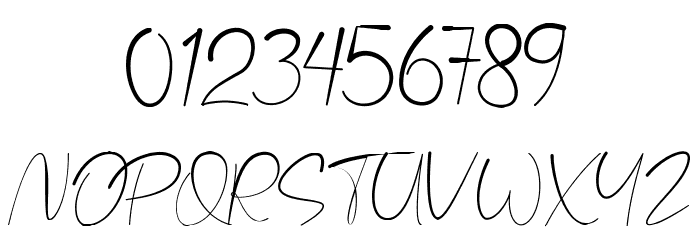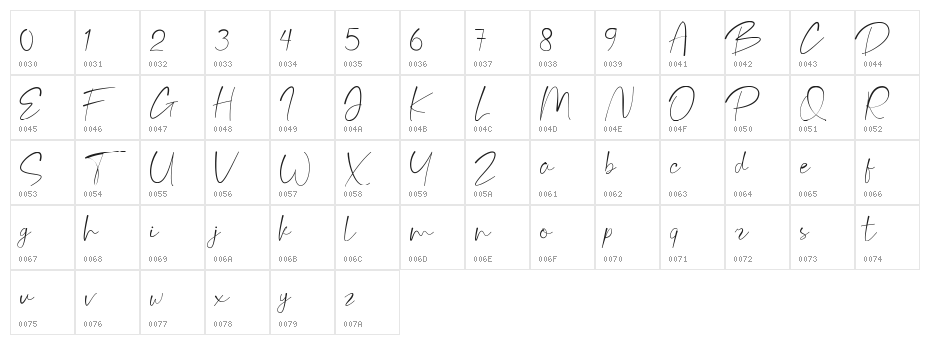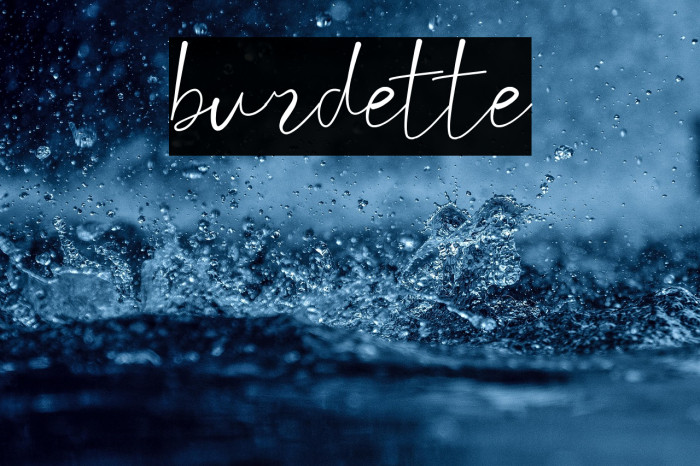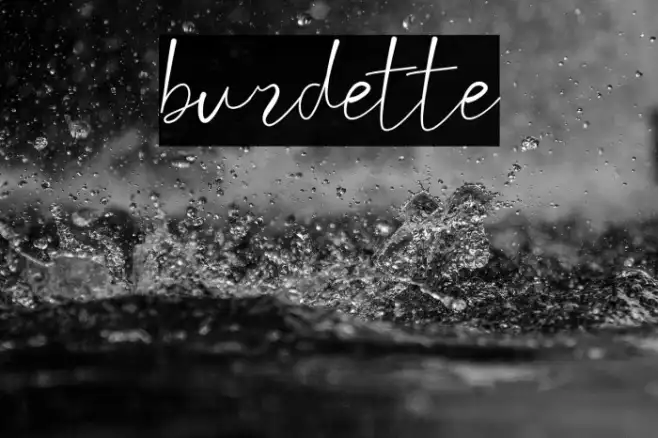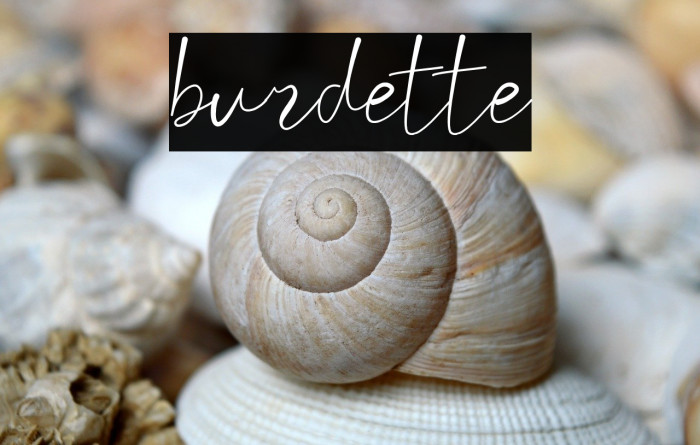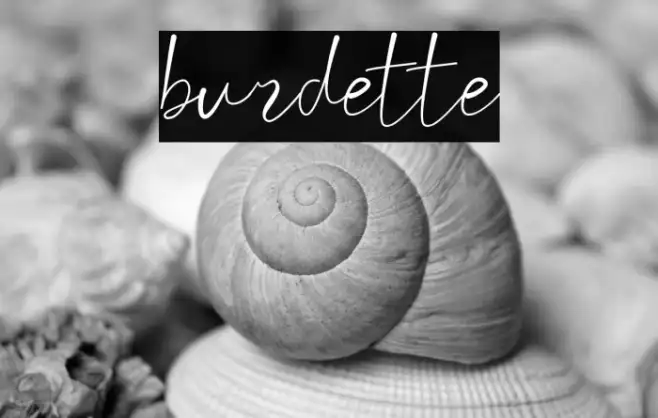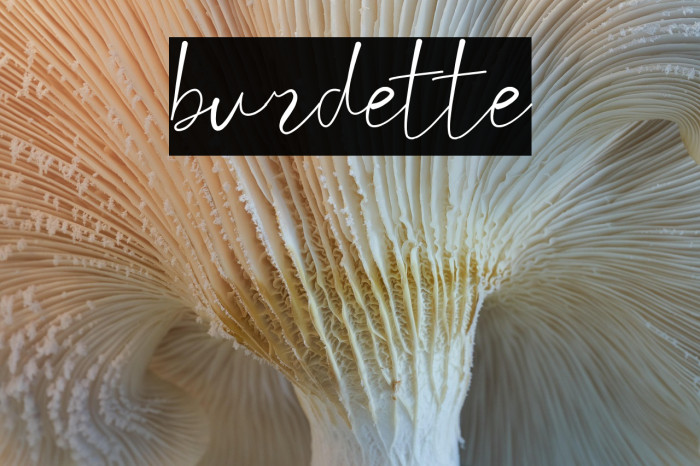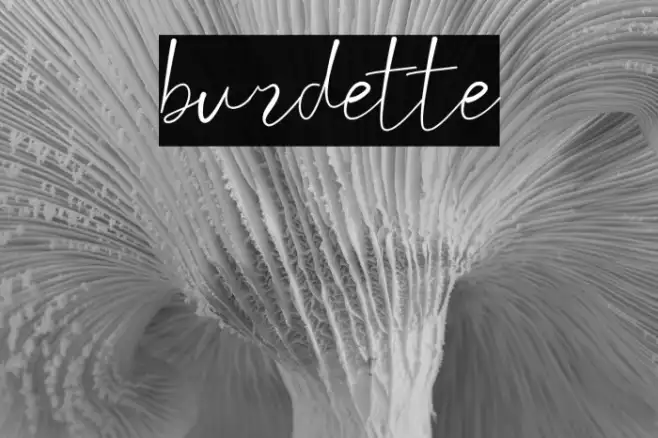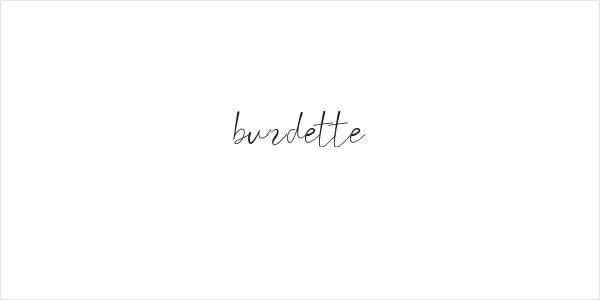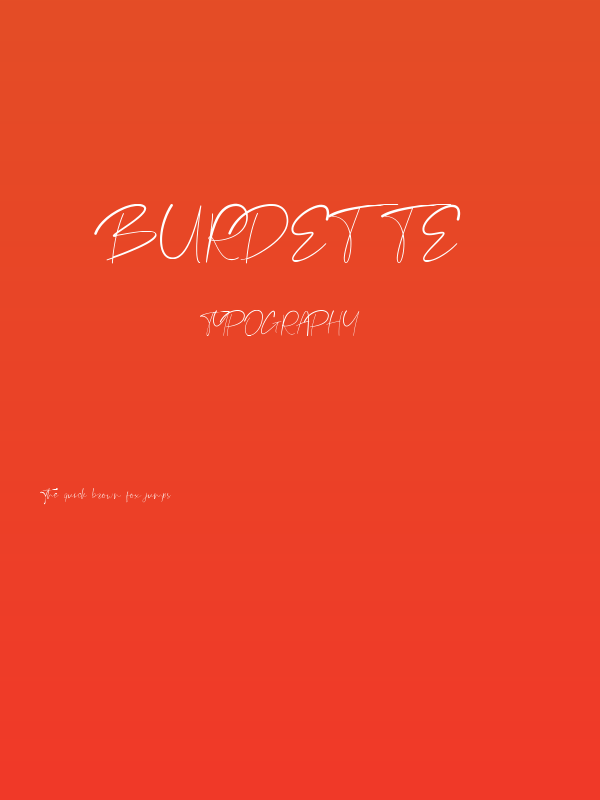
burdette Font
burdette Description
This font features an elegant and flowing script style, characterized by its smooth, cursive strokes and a handwritten appearance. The letters are connected with a natural fluidity, giving it a personal and artistic touch. The uppercase letters are tall and slightly elongated, while the lowercase letters maintain a consistent baseline with occasional loops and flourishes. The numerals are designed to match the overall aesthetic, with a graceful and slightly whimsical form. This font is perfect for projects that require a touch of sophistication and creativity, such as invitations, greeting cards, and branding materials. Its delicate lines and artistic flair make it stand out in any design.
| Overall Style | Elegant, Artistic |
| Proposed Projects | Ideal for invitations, greeting cards, branding, and artistic projects. |